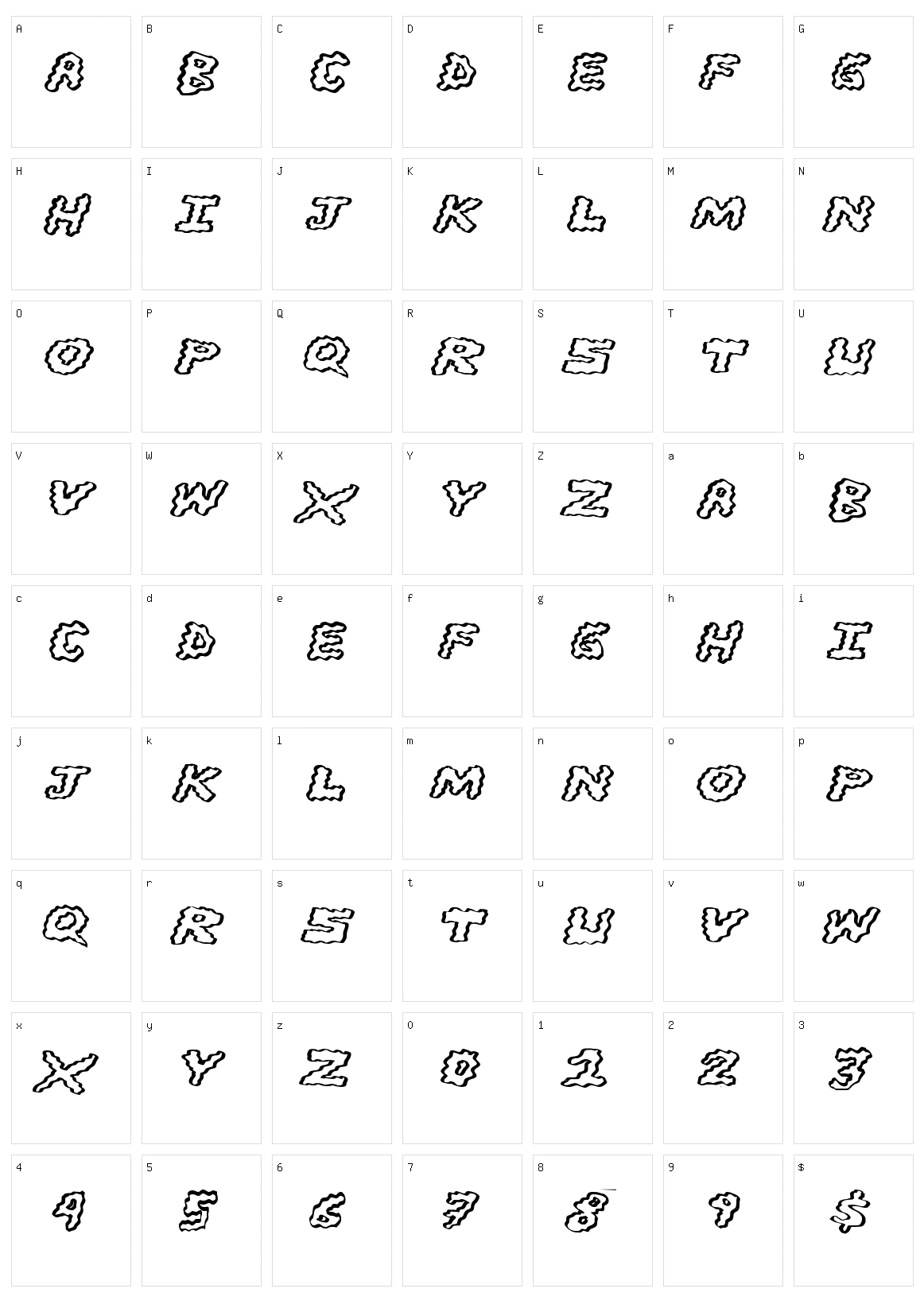
The free font Brain Washers is carefully designed by Xerographer Fonts, showcasing a thoughtful balance of creativity and usability and falls under the Horror font style. When you download the ZIP file, it contains only 53.04 KB of font files, making it lightweight and quick to download. Please review the license details below to understand permitted usage and distribution rights. If license information is not available, we recommend using this font for personal projects only or contacting the author directly for commercial usage permissions.